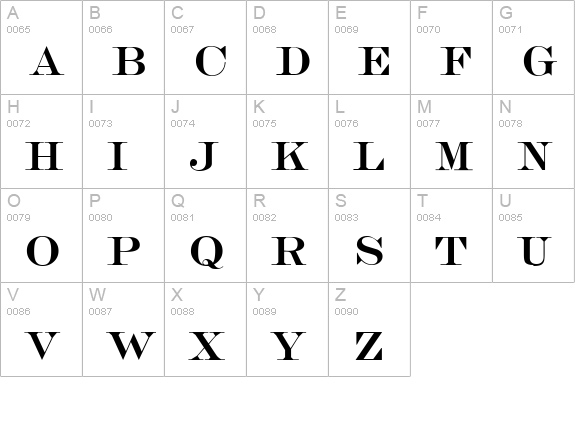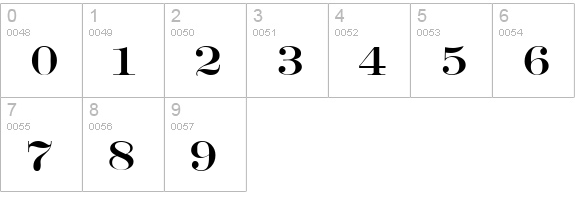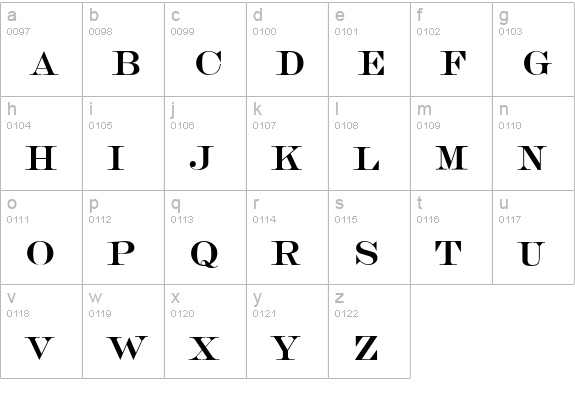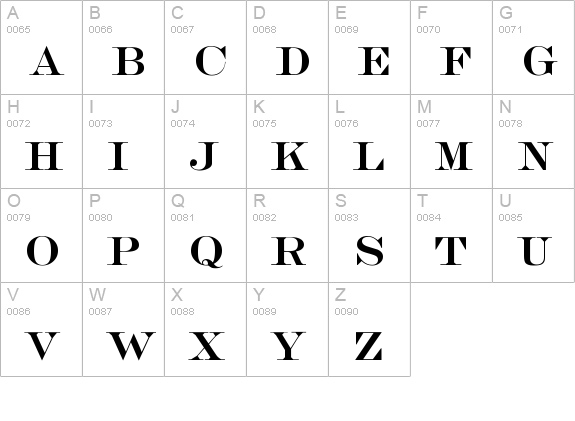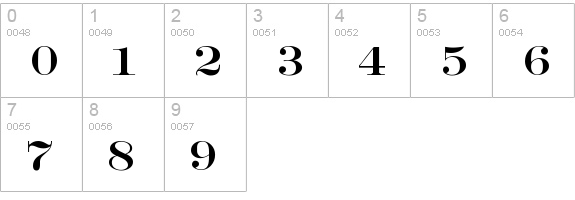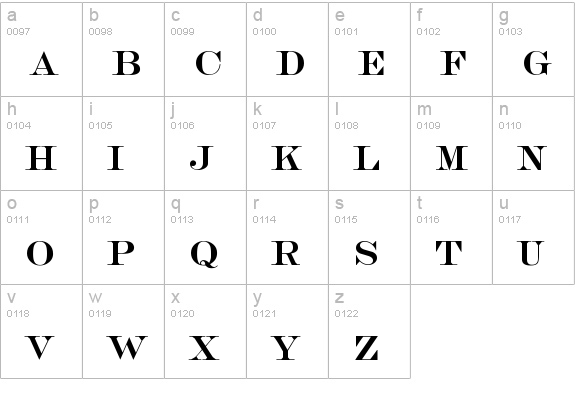
S650-Roman-Regular Font Details
S650-Roman-Regular is the standard, neutral variant in the S650 typeface family \xE2\x80\x94 well suited to general body text, paragraphs, and standard typographic work.
The S650-Roman-Regular font is a versatile and elegant typeface that exudes a classic and timeless appeal. With its clean lines and balanced proportions, this font is suitable for a wide range of design projects, from branding and marketing materials to editorial content and web design. The S650-Roman-Regular font's sophisticated yet approachable style makes it a popular choice for designers looking to add a touch of refinement to their work. Best of all, this font is completely free to download at FontsMarket.com, where you can easily access and use it for your personal and commercial projects. Whether you're creating a sleek logo, crafting a professional presentation, or designing a stylish website, the S650-Roman-Regular font is sure to elevate your designs and leave a lasting impression on your audience. Download this font today and discover the endless possibilities it offers for your creative endeavors.